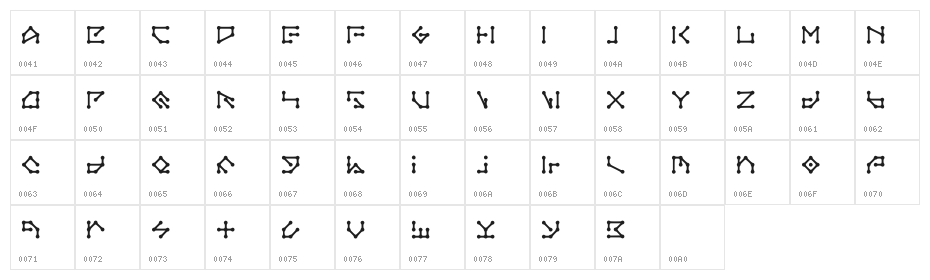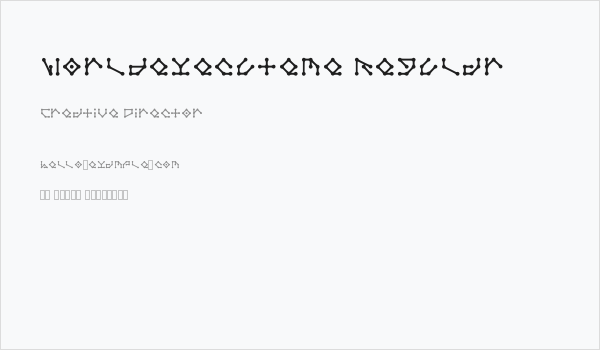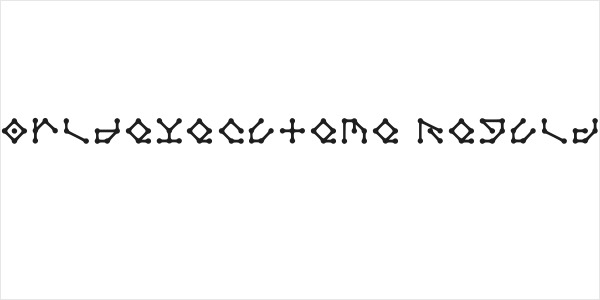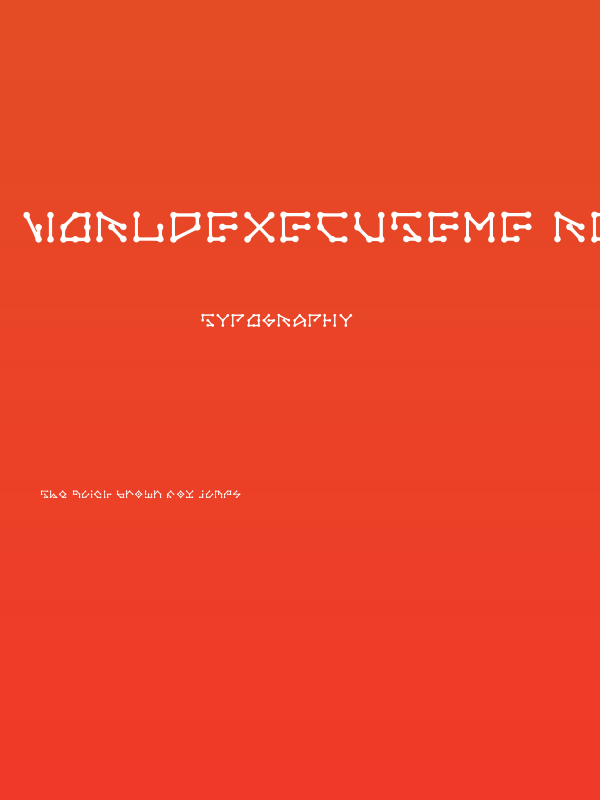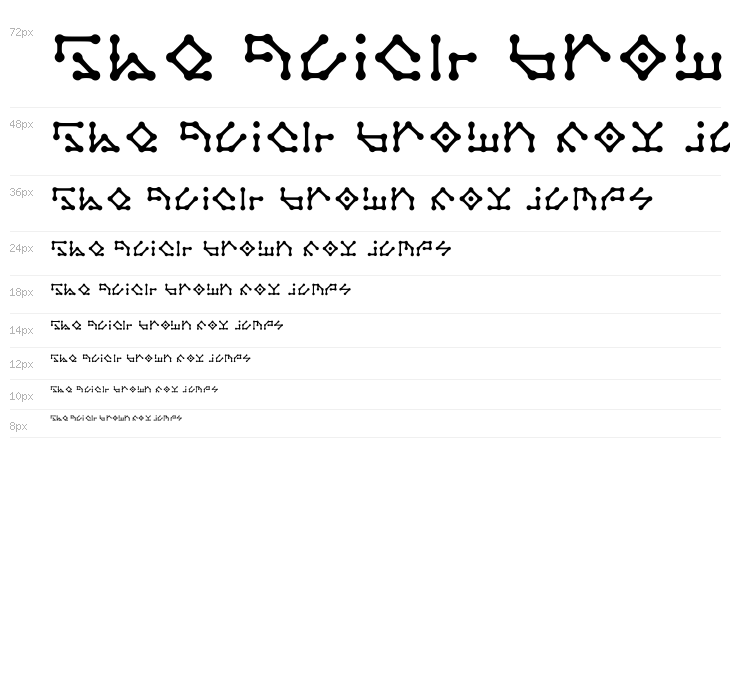
Worldexecuteme Regular Font
This font features a unique and abstract design, characterized by its geometric and interconnected style. Each character is composed of bold, rounded strokes that form a network of lines and nodes, creating a futuristic and digital appearance. The uppercase and lowercase letters maintain a consistent structure, with a focus on symmetry and balance. The numbers and special characters follow the same design principles, ensuring uniformity across the set. This font's distinct look makes it stand out, offering a modern and unconventional aesthetic.
| Use Case | Logos, Headlines, Posters |
| Proposed Projects | Ideal for technology-themed projects, digital art, sci-fi book covers, and modern branding. |